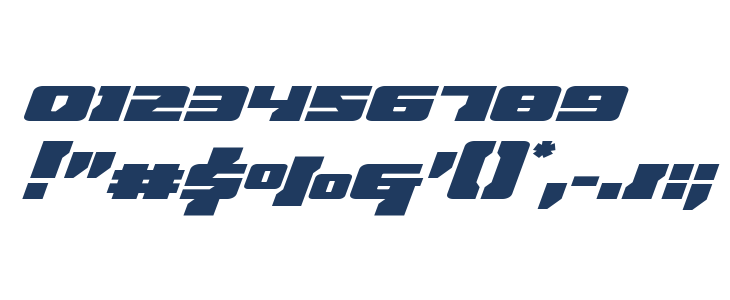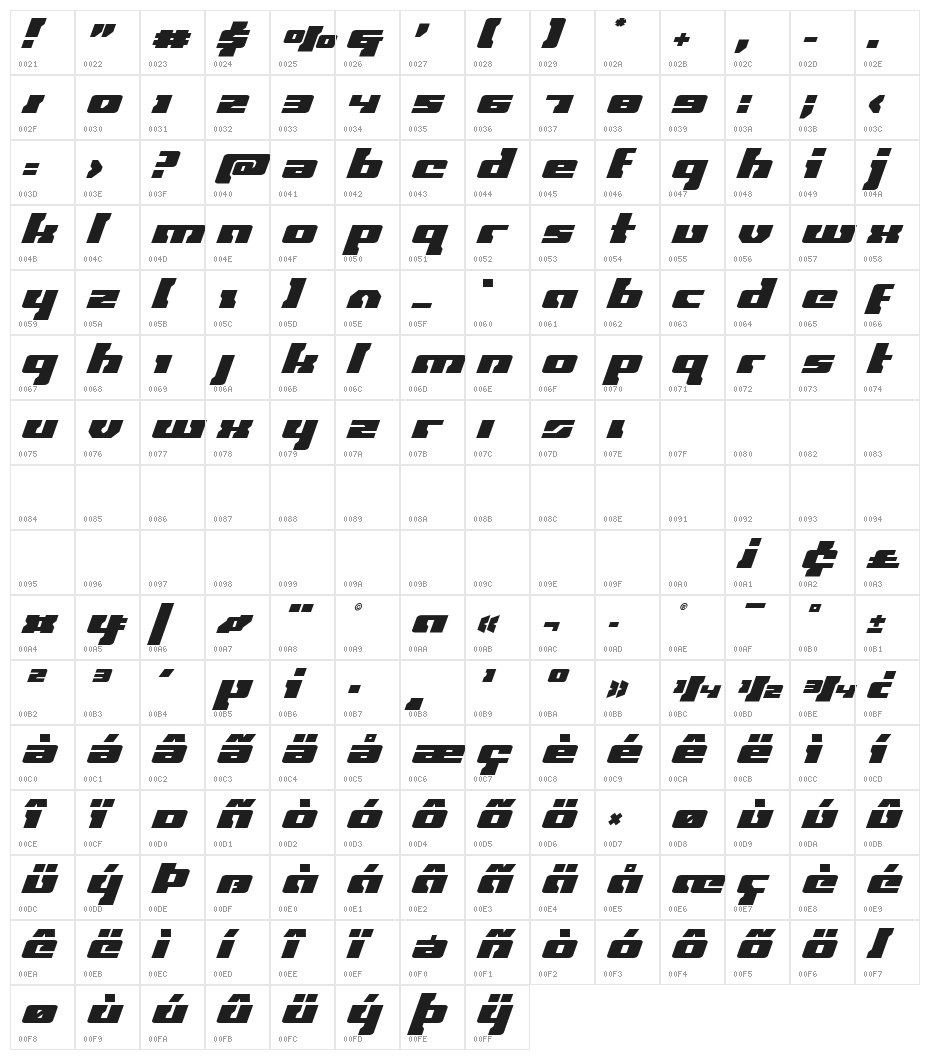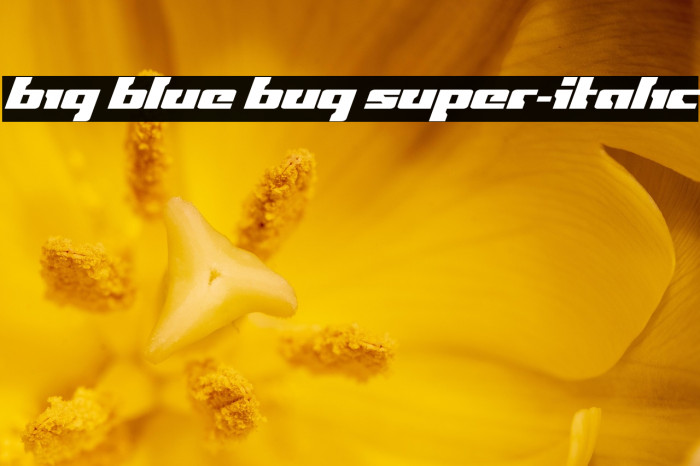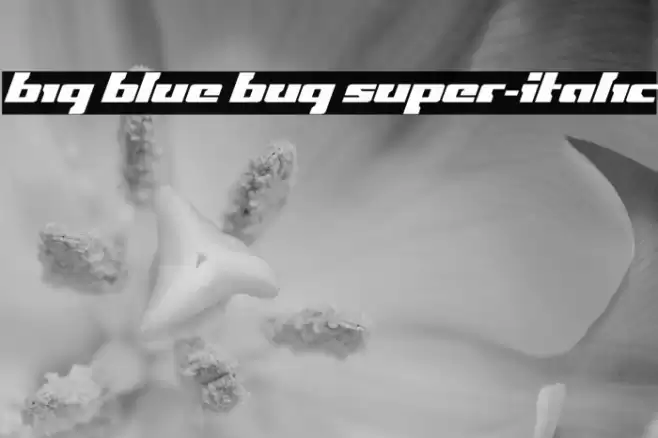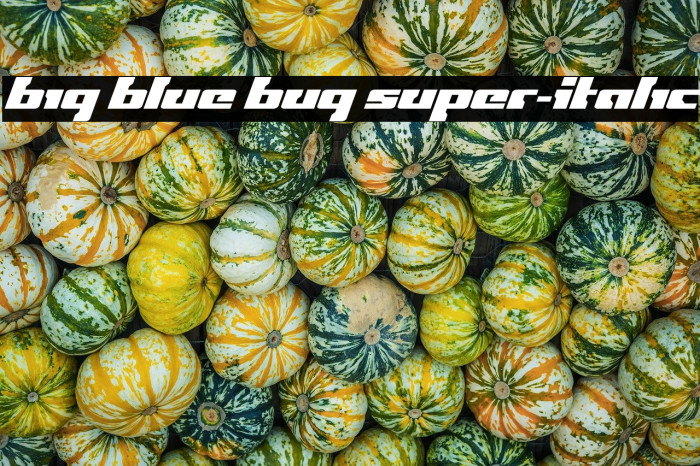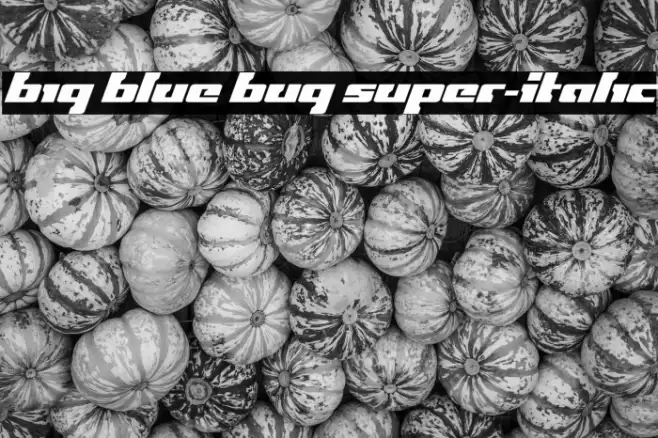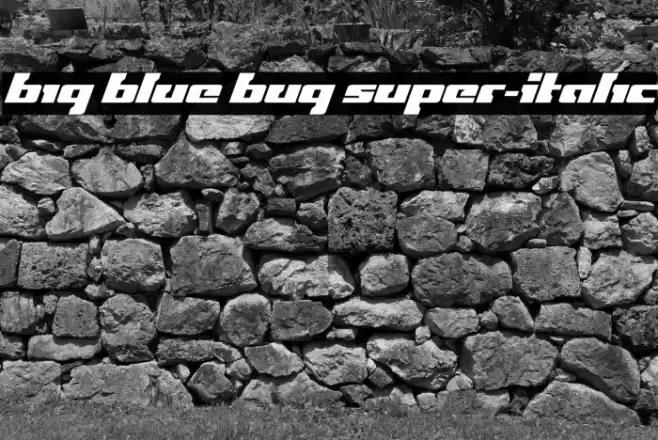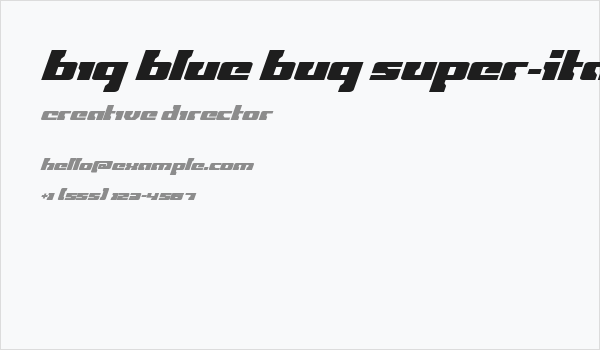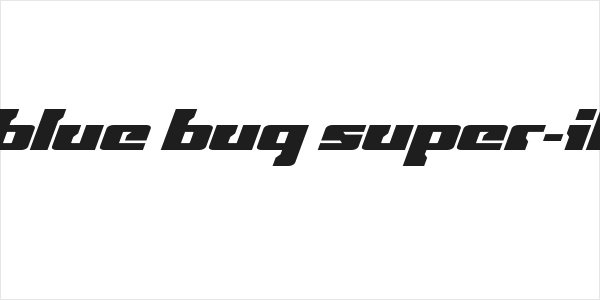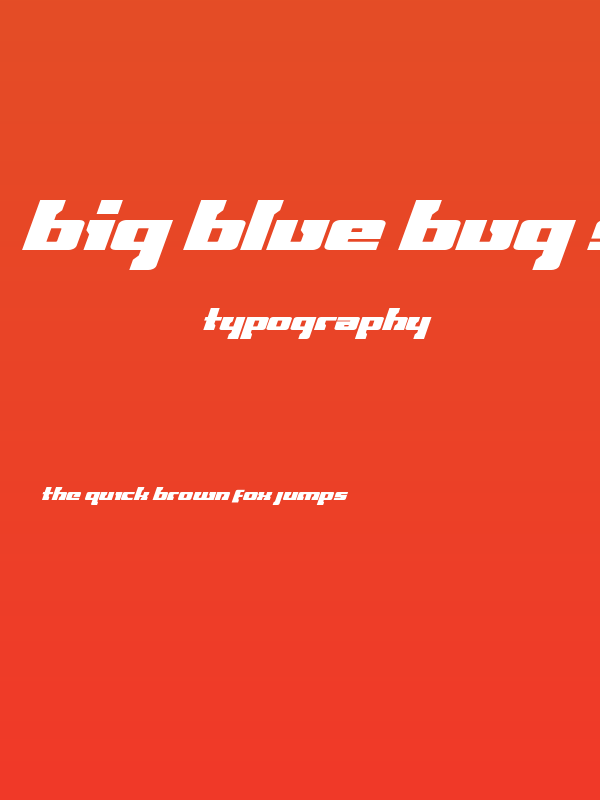
Big Blue Bug Super-Italic Font
Big Blue Bug Super-Italic Description
This font features a bold and dynamic style with a strong italic slant, giving it a sense of motion and energy. The characters are thick and robust, with sharp angles and a futuristic appearance. The uppercase and lowercase letters maintain a consistent style, with the lowercase being slightly more compact. The numbers are equally bold, ensuring readability and impact. Special characters are designed to match the overall aesthetic, making this font suitable for attention-grabbing designs.
| Proposed Projects | Ideal for sports branding, action-themed posters, video game titles, and dynamic logo designs. |